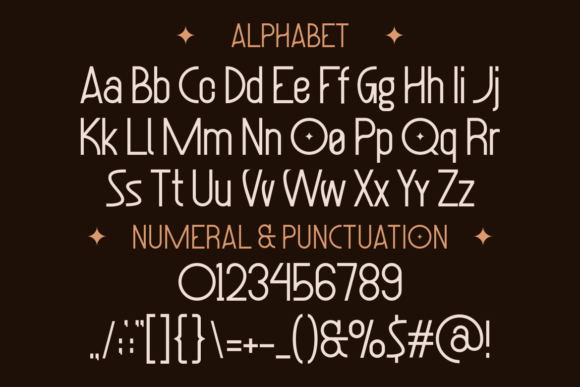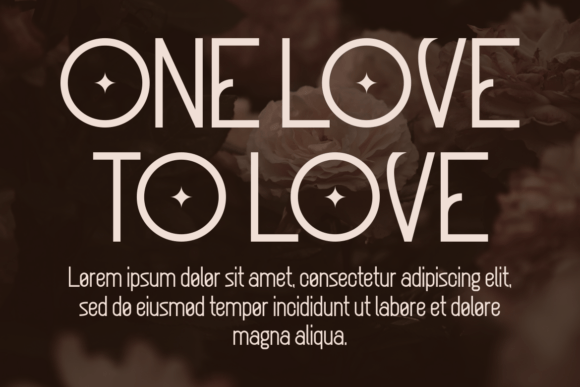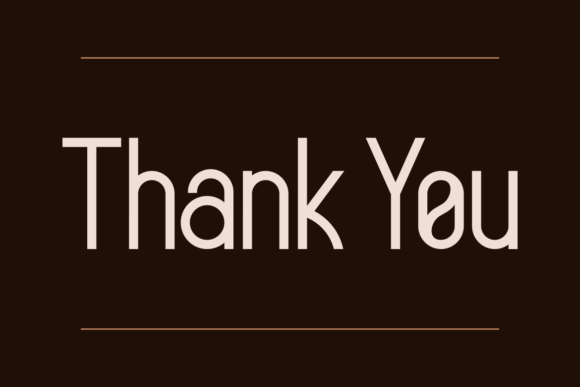
Introduction to Loyaly Font
Loyaly is a modern and stylish sans seri font.
Its versatile appearance makes it the right choice when you want to create fashionable designs .
Key Features of Loyaly Font
Why Choose Loyaly Font?
Loyaly Font offers exceptional quality and versatility, making it a valuable addition to your design toolkit. Whether you’re creating for personal projects or commercial use, Loyaly Font delivers professional results.